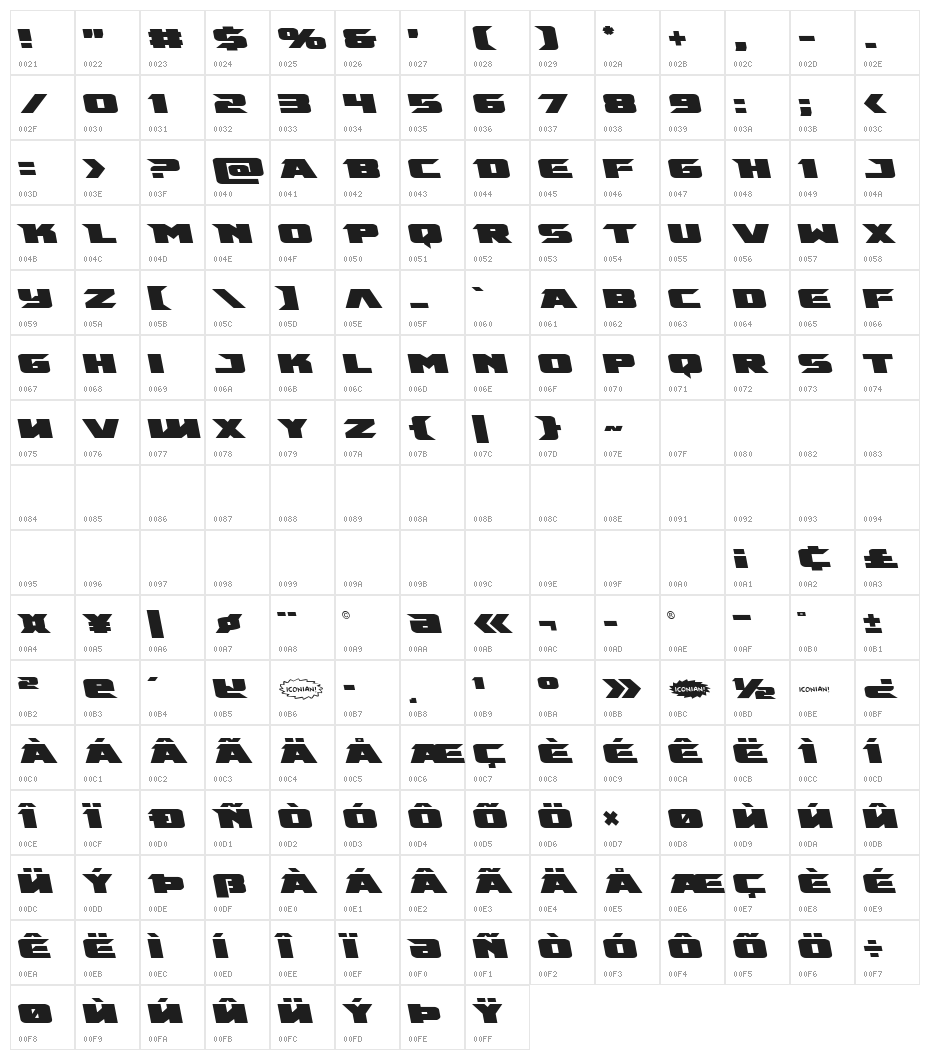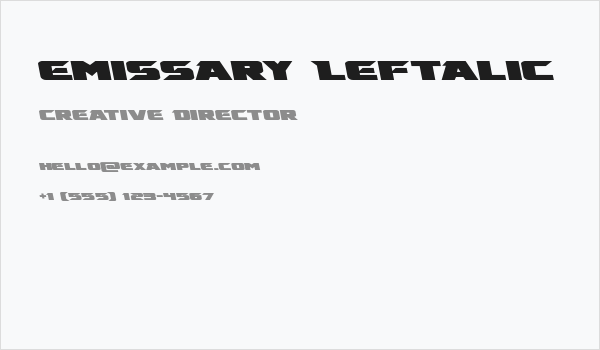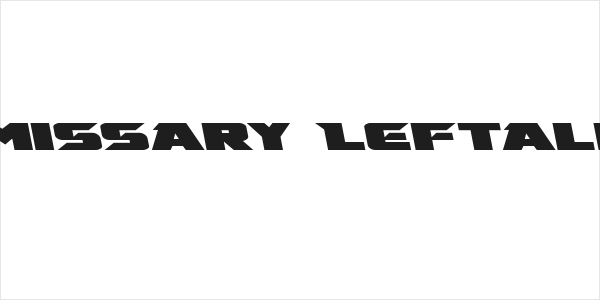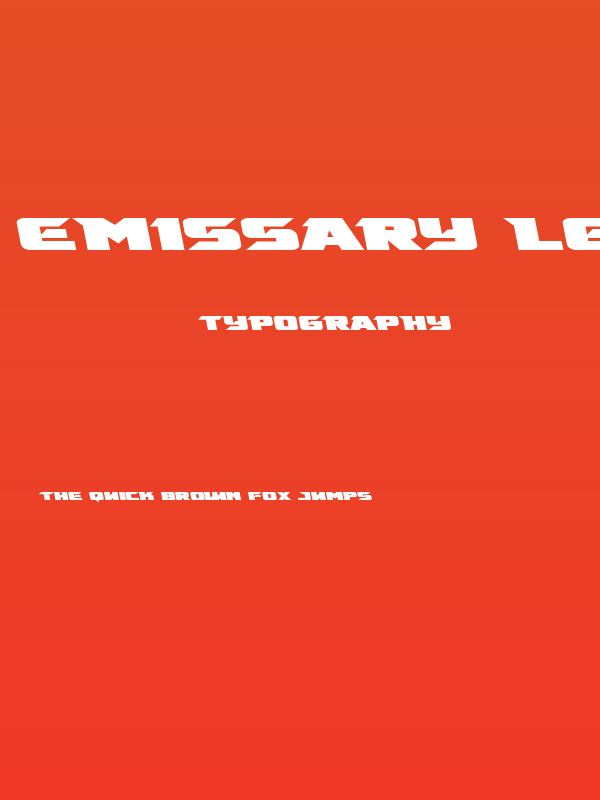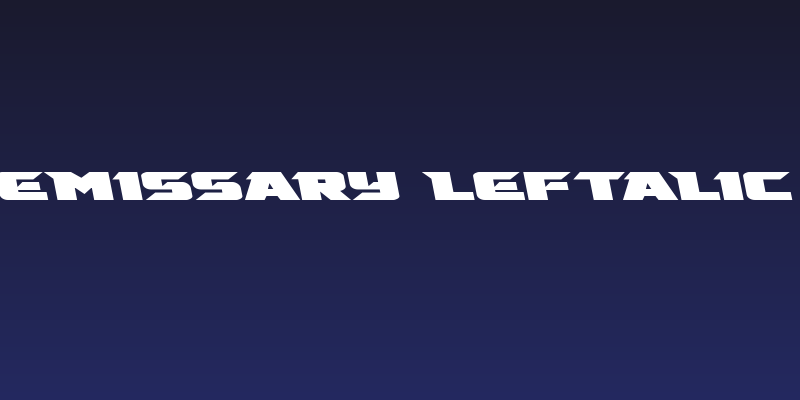
Emissary Leftalic Font
Emissary Leftalic Description
This font features a bold and dynamic design with a futuristic and angular aesthetic. The characters are heavily stylized with sharp edges and a slanted orientation, giving a sense of movement and energy. The uppercase and lowercase letters maintain a consistent style, with the lowercase being slightly smaller but equally bold. Numbers and special characters follow the same design principles, ensuring uniformity across all elements. The font's unique style makes it stand out, suitable for projects that require a strong visual impact.
| Proposed Projects | Ideal for sci-fi themed designs, video game titles, posters, and branding that requires a modern and edgy look. |